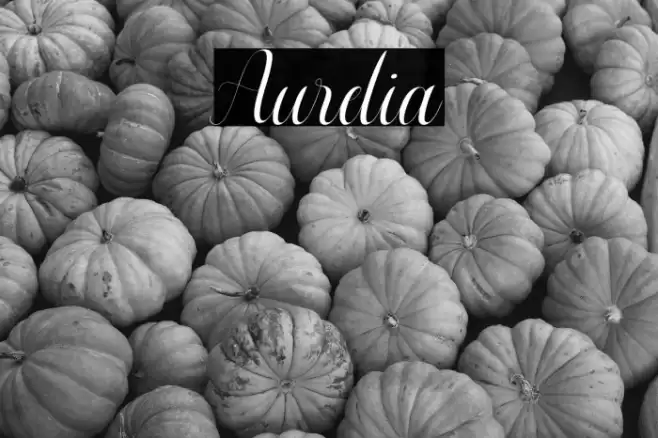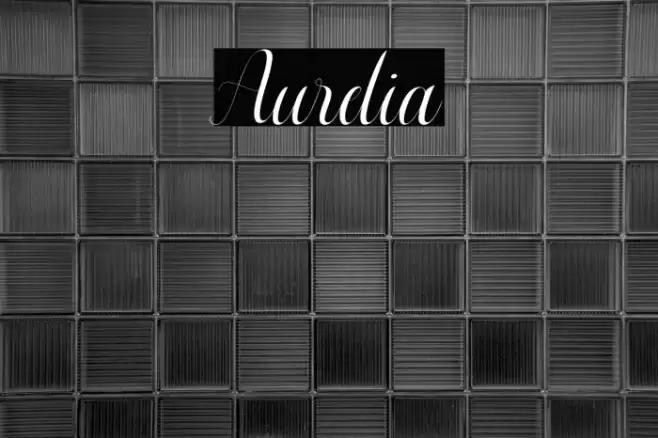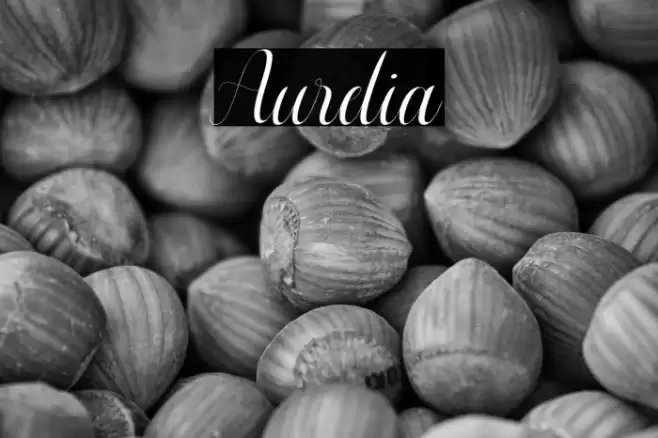
Aurelia Font
Aurelia Description
This elegant script font features flowing, interconnected strokes that give it a sophisticated and artistic appearance. The uppercase letters are tall and graceful, with sweeping curves and delicate flourishes that add a touch of luxury. The lowercase letters maintain a consistent style, with smooth transitions and a slightly more compact form. The numerals are designed with similar elegance, ensuring a cohesive look across all characters. Special characters are thoughtfully integrated, maintaining the font's overall aesthetic. This font is perfect for projects that require a touch of class and refinement.
An elegant script font with flowing, interconnected strokes and luxurious flourishes from Regular fonts.
- Proposed Projects: Ideal for wedding invitations, luxury branding, elegant packaging, and high-end editorial design.
- Overall Style: Elegant, Artistic
- Use Case: Logos, Invitations, Branding